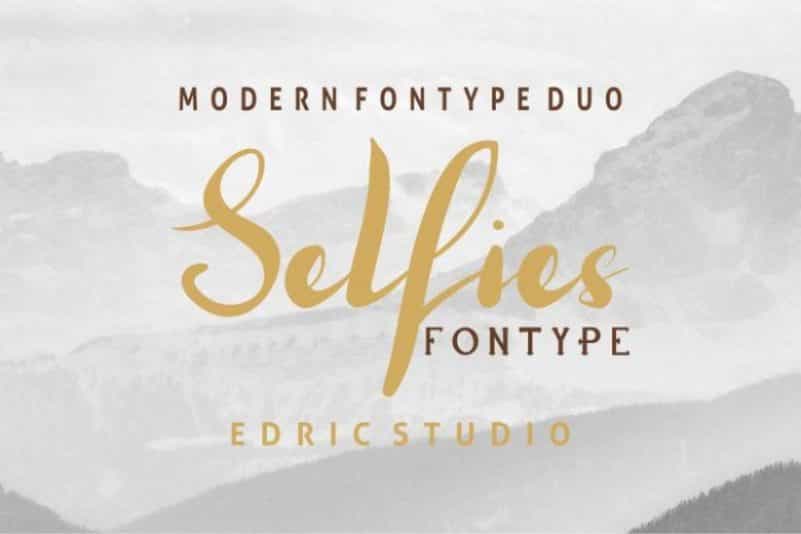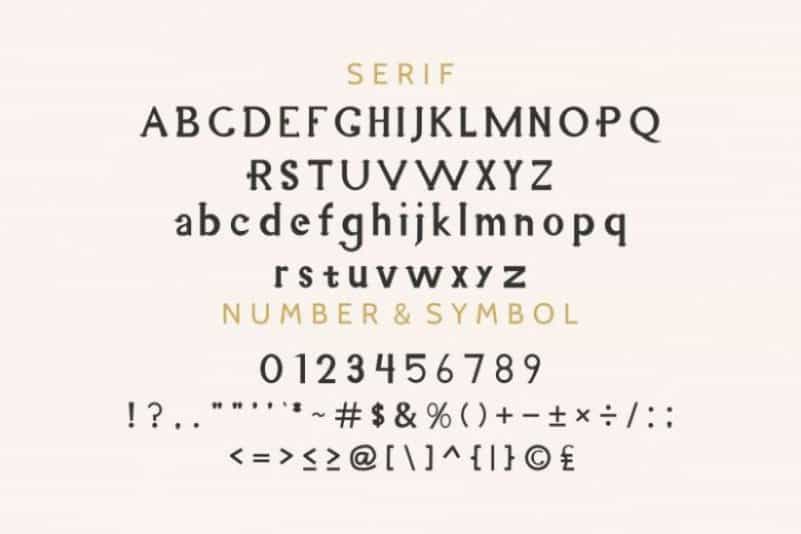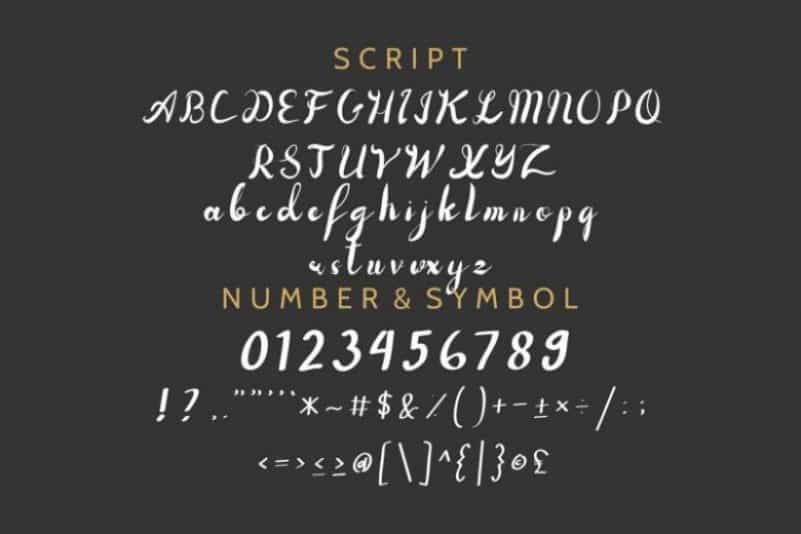
Discover Selfies Font Duo, part of the Handwritten Serif collection—a versatile and unique font perfect for adding a personal touch to your projects. Download it for free and enjoy crafting designs with style, from invitations to social media posts. This font is available exclusively for personal use, giving you the freedom to create without limits. Unlock your creativity with Selfies Font Duo today!
Selfies is a new modern font duo : Script penned and Serif Display font. It has a modern, refined and unique glyph. Stylish font is an elegant stylishing font which is great for branding, logo, photography, flyer headline, movie, invitation, card, signage, brochure etc.